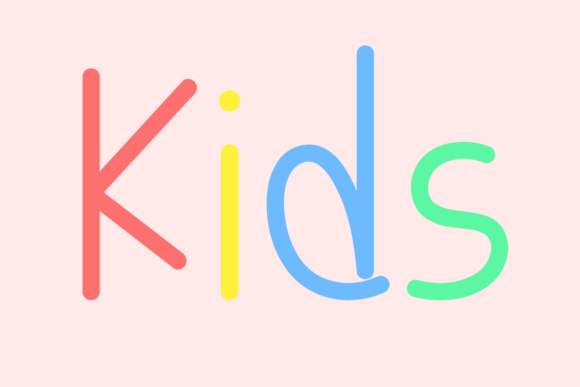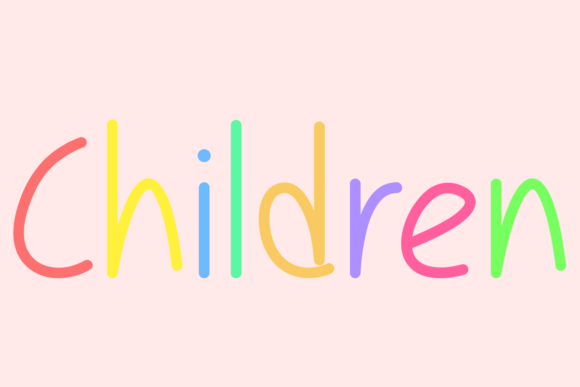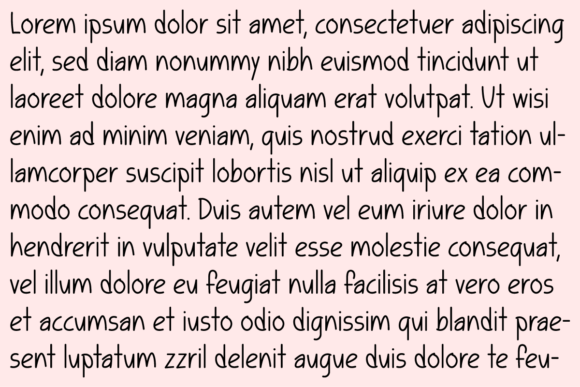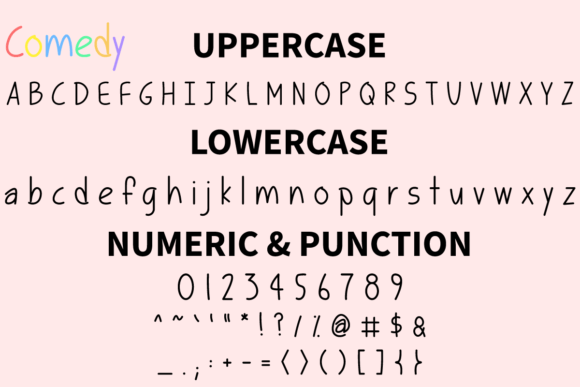
The Power of Comedy Font: Elevate Your Designs with a Simple and Friendly Handwritten Style
Are you tired of using the same old fonts in your designs? Look no further than the Comedy Font, a whimsical and quirky handwritten font that’s sure to brighten up any project. With its simple and friendly style, this typeface is perfect for designers and crafters looking to add a touch of personality to their work.
What is Comedy Font?
Comedy Font is a handwritten font that’s designed to be both playful and approachable. Its whimsical and quirky style makes it perfect for a wide range of design projects, from logos and wedding invitations to quotes, advertisements, and more. Whether you’re a professional designer or a crafty DIY enthusiast, this font is sure to become a favorite in your collection.
Key Features of Comedy Font
- Simple and Friendly Style: Comedy Font has a clean and approachable design that’s easy to read and fun to use.
- Whimsical and Quirky: This font has a playful personality that’s perfect for designers and crafters who want to add a touch of humor and whimsy to their work.
- Versatile: Comedy Font is perfect for a wide range of design projects, including logos, wedding invitations, quotes, advertisements, print, magazines, and more.
Why Use Comedy Font?
There are many reasons why Comedy Font is a great choice for designers and crafters. Here are just a few:
- Add Personality to Your Designs: With Comedy Font, you can add a touch of personality and whimsy to your designs, making them stand out from the crowd.
- Easy to Read: This font is clean and easy to read, making it perfect for designs where readability is important.
- Perfect for DIY Projects: Comedy Font is a great choice for crafty DIY enthusiasts who want to add a personal touch to their projects.
How to Use Comedy Font
Comedy Font is easy to use and can be incorporated into a wide range of design projects. Here are a few ideas to get you started:
- Logos: Use Comedy Font to create a fun and playful logo for your business or brand.
- Wedding Invitations: Add a touch of whimsy to your wedding invitations with Comedy Font.
- Quotes: Use Comedy Font to create eye-catching quotes and posters.
- Advertisements: Add a playful touch to your advertisements with Comedy Font.
Tips and Tricks for Using Comedy Font
Here are a few tips and tricks to keep in mind when using Comedy Font:
- Use it Sparingly: While Comedy Font is fun and playful, it can be overwhelming if used too much. Use it sparingly to add a touch of personality to your designs.
- Pair it with Other Fonts: Comedy Font pairs well with other fonts, so don’t be afraid to experiment with different combinations.
- Experiment with Colors: Comedy Font looks great in a variety of colors, so don’t be afraid to experiment and find the perfect color for your design.
| Font Name | Comedy Font |
| Author | Woracado |
Comedy Font is a simple and friendly handwritten font that’s perfect for designers and crafters looking to add a touch of personality to their work. With its whimsical and quirky style, this font is sure to brighten up any design project. Whether you’re creating logos, wedding invitations, quotes, advertisements, or more, Comedy Font is a great choice. So why not give it a try and see the difference it can make in your designs?
In conclusion, Comedy Font is a versatile and fun font that’s perfect for anyone looking to add a touch of humor and whimsy to their designs. Its simple and friendly style makes it easy to read and fun to use, and its versatility makes it perfect for a wide range of design projects. So if you’re looking for a font that’s sure to bring a smile to your face, look no further than Comedy Font.